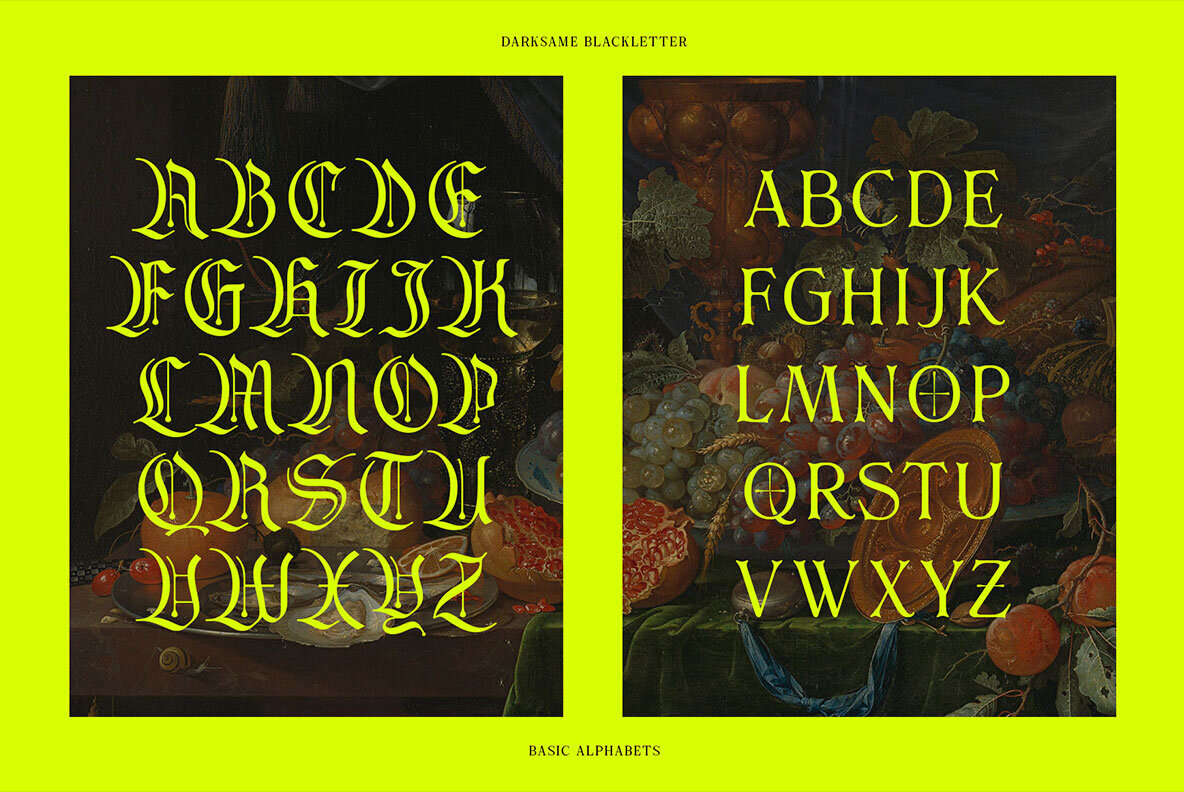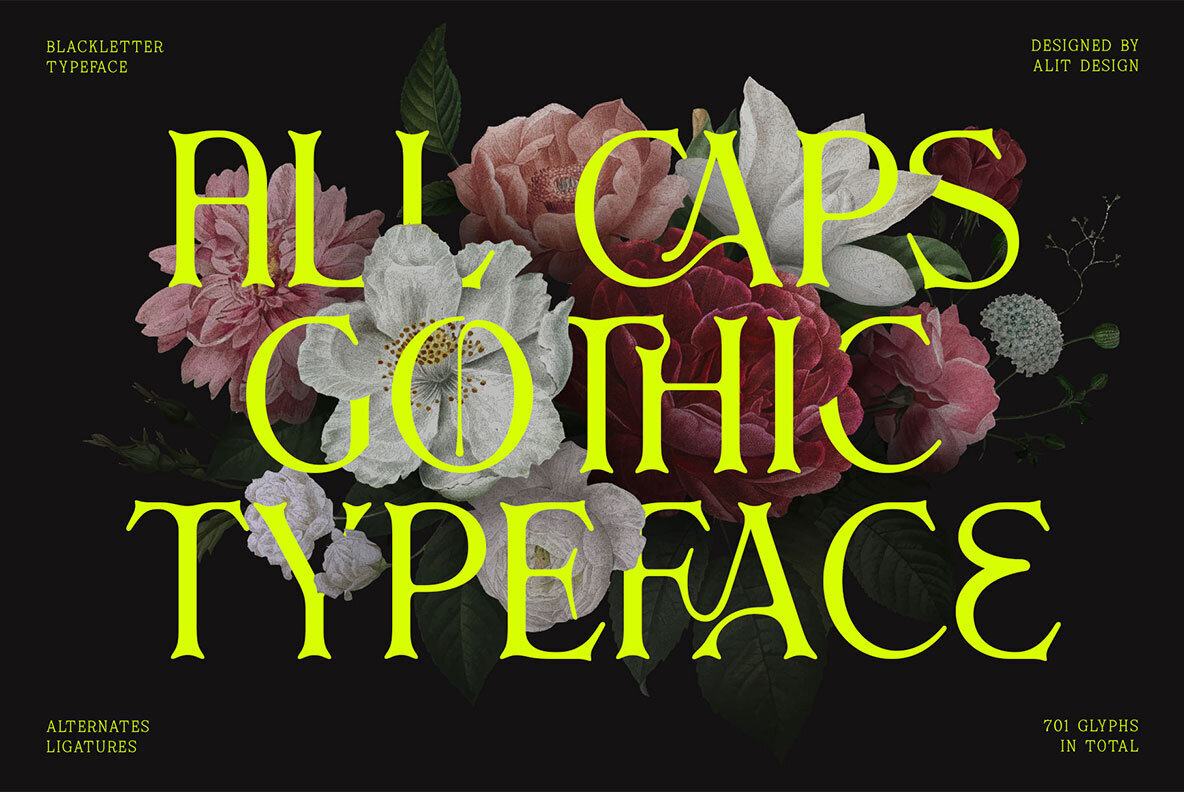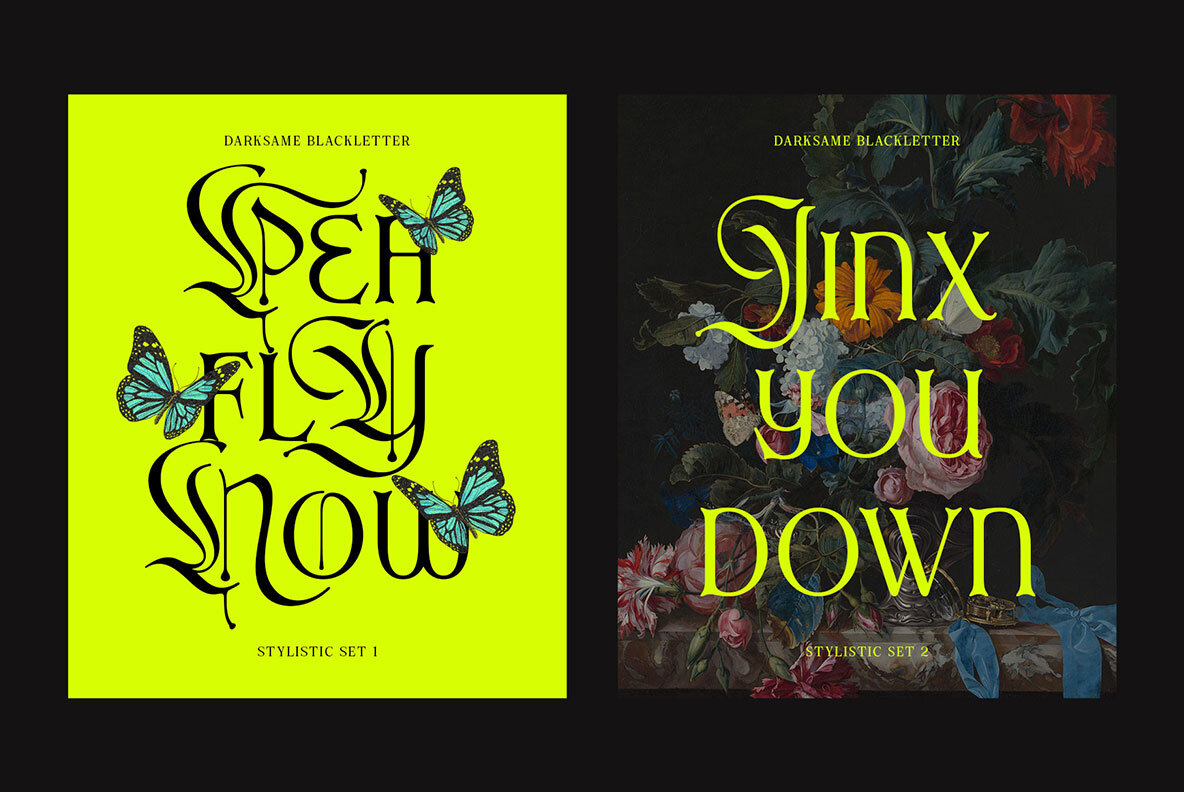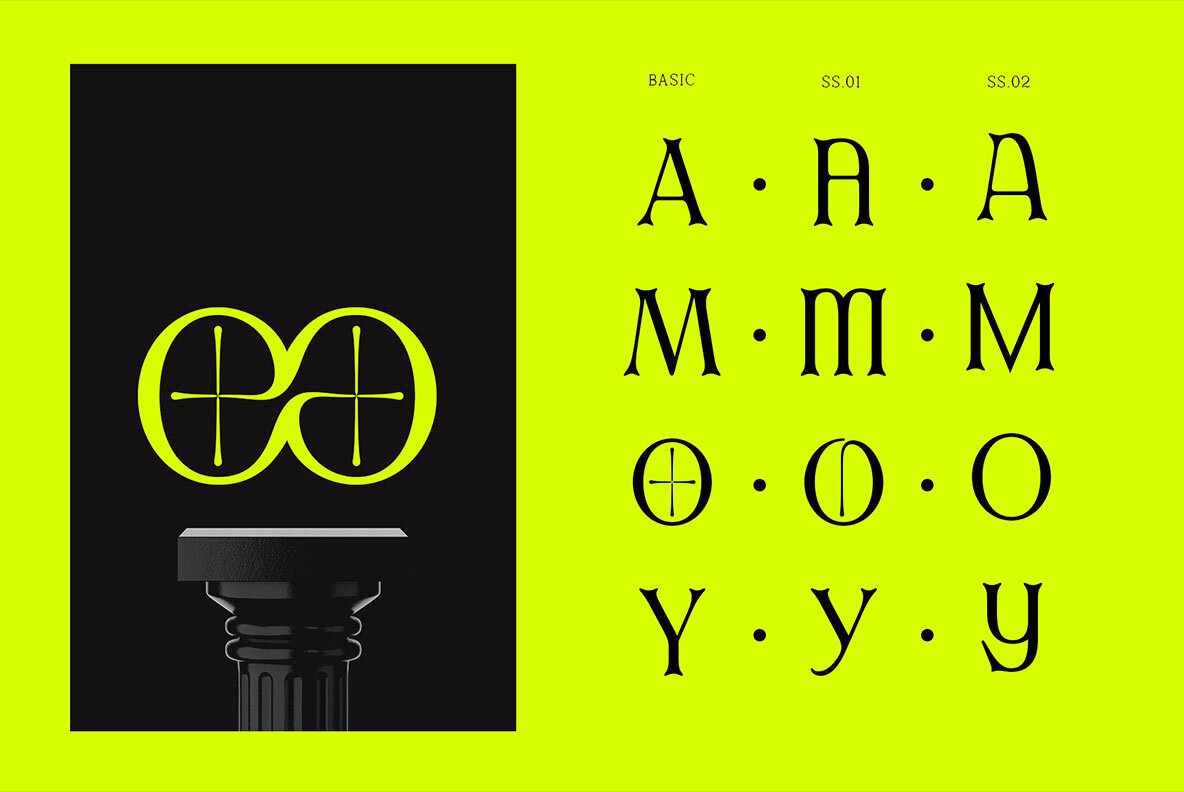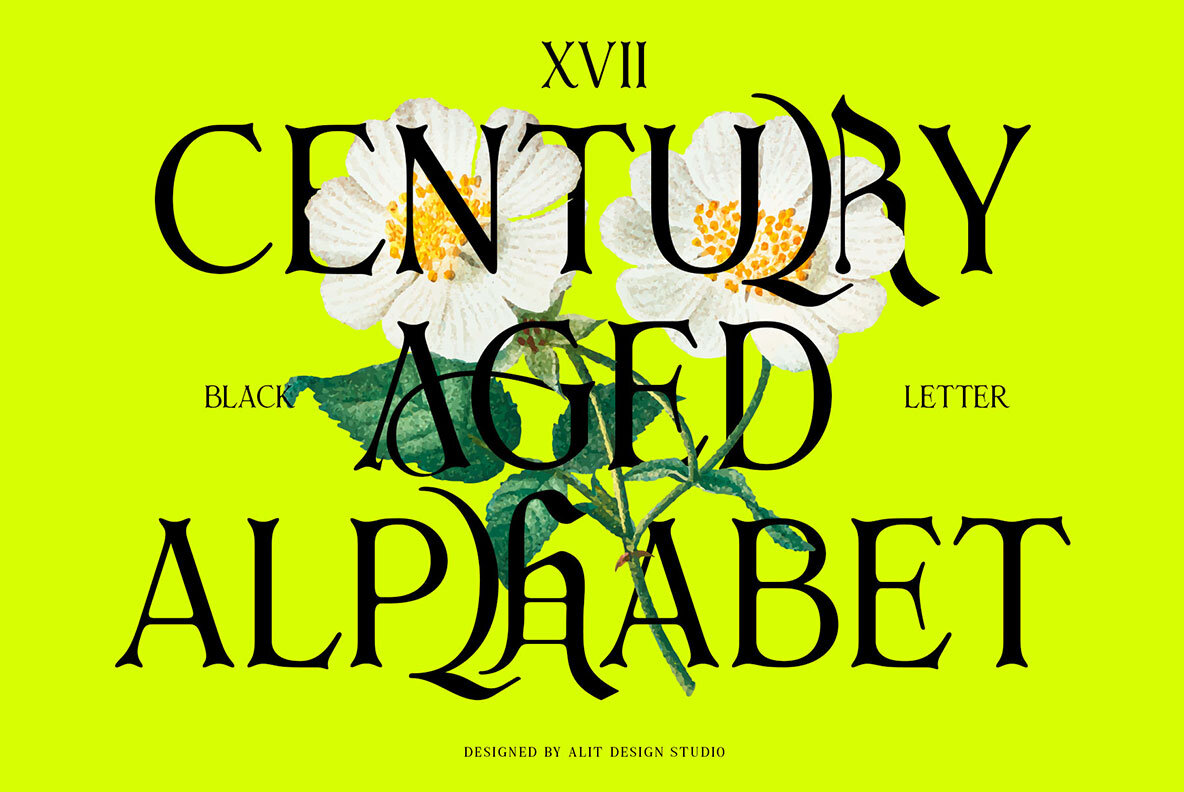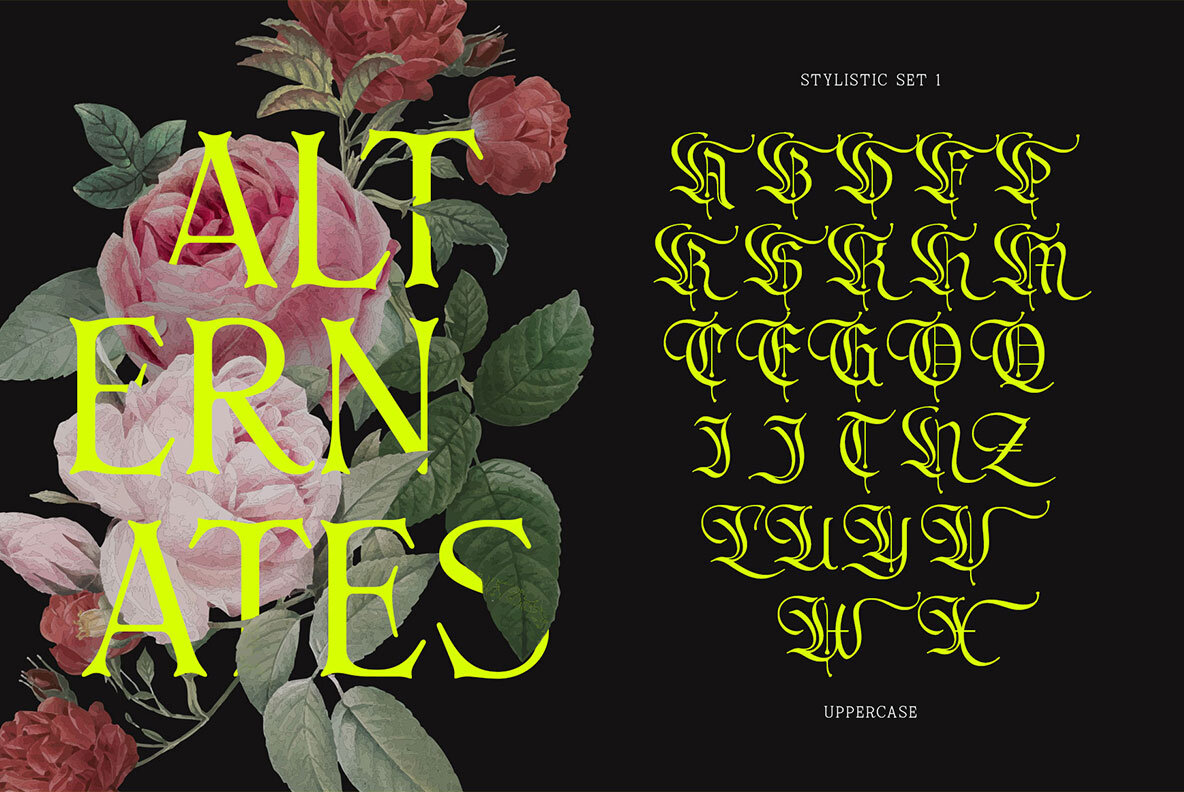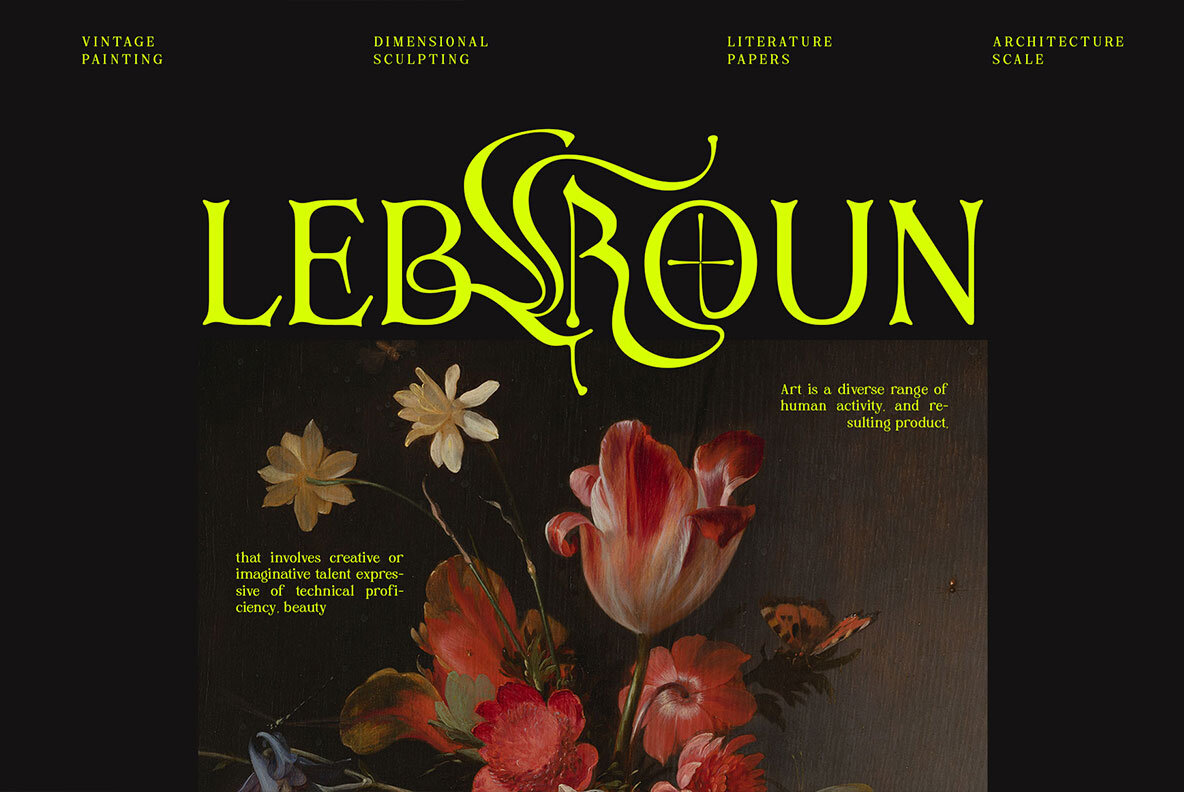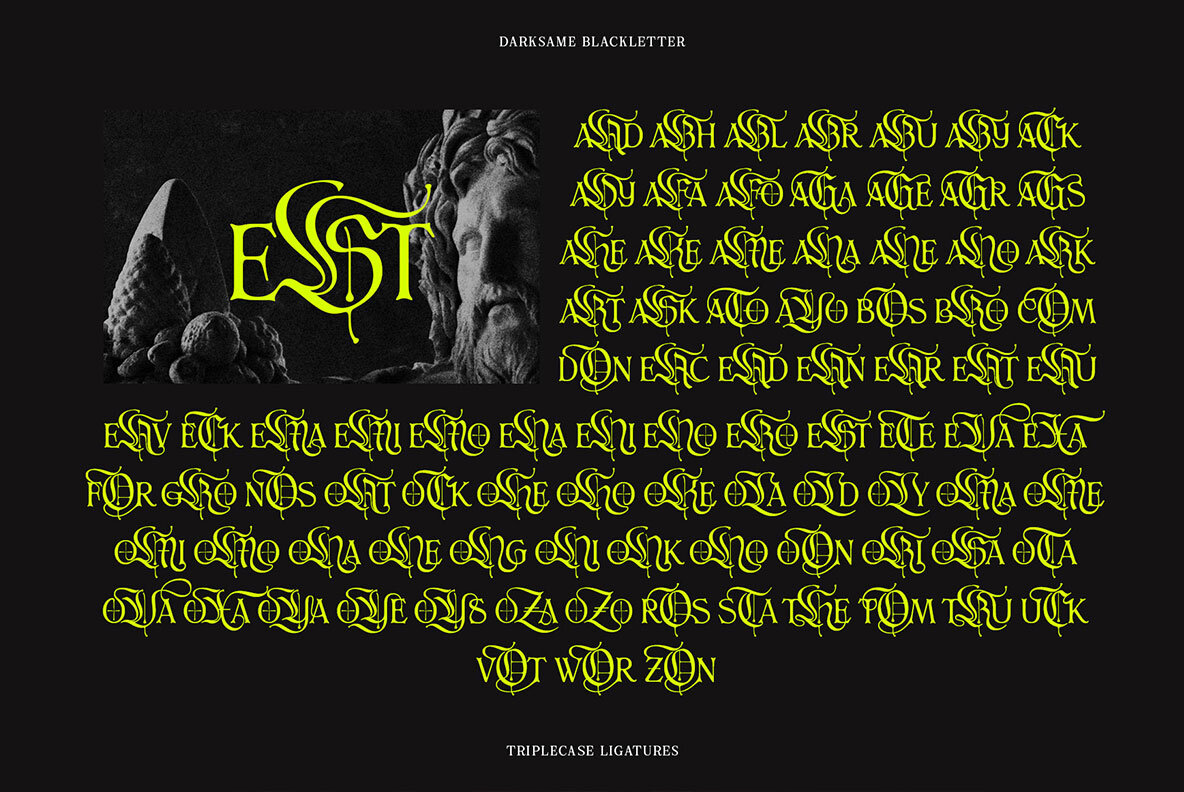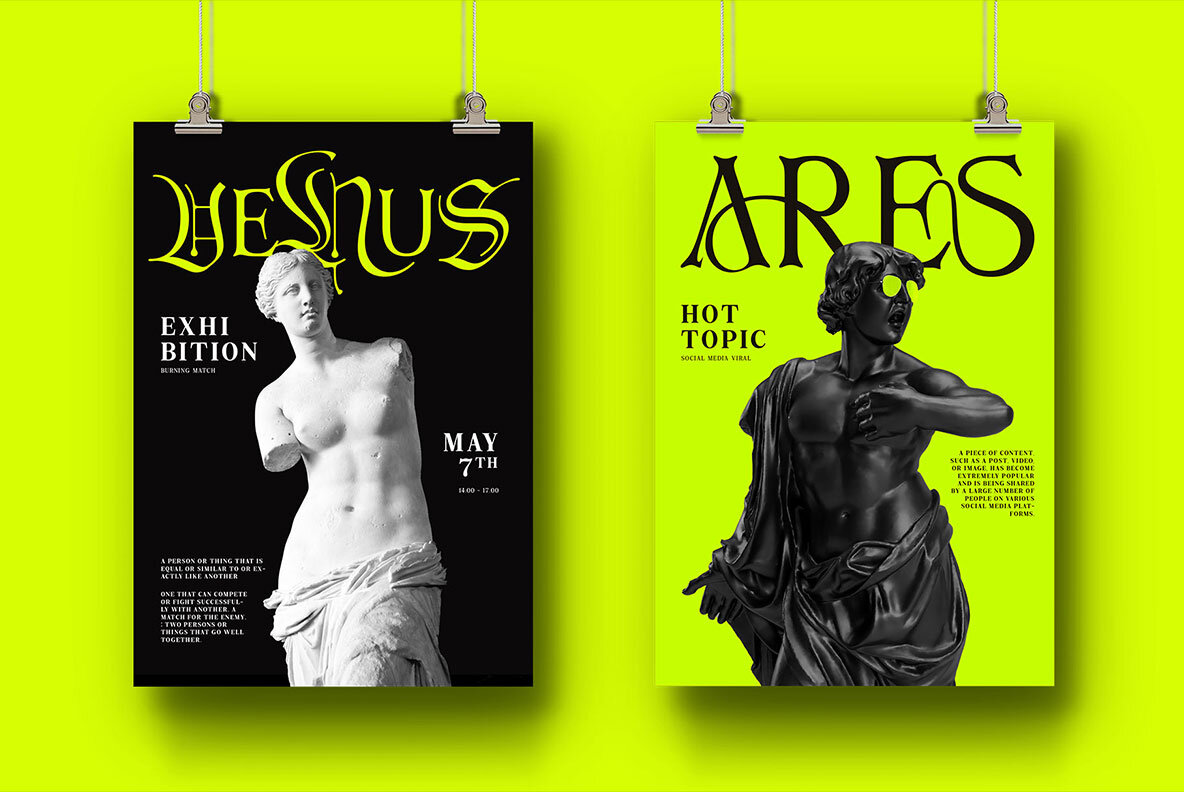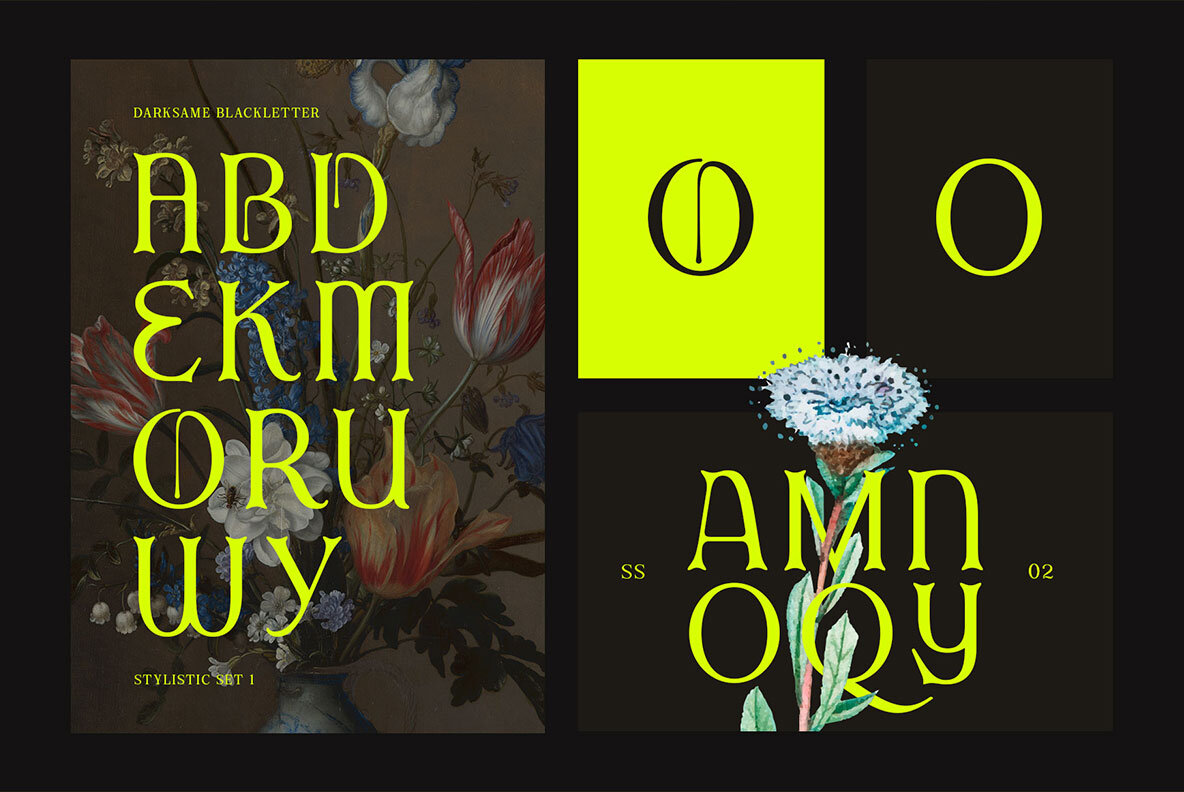
Dark Same Font
Darksame Regular
"Dark Same" is a unique and versatile font that combines the striking and bold elements of blackletter with the elegant and refined features of a serif font. This font is perfect for anyone looking to add a touch of sophistication and style to their design projects. With over 701 characters, "Dark Same" offers support for PUA Unicode and multilingual use. Its extensive range of alternate glyphs, ligatures, and swashes allow for endless creative possibilities and customization. The font's classic modern and beauty dark style makes it an excellent choice for various design projects, including branding, logos, invitations, book covers, posters, and more. "Dark Same" will add a touch of timeless elegance to any project and will make your designs stand out from the crowd. Overall, "Dark Same" is a must-have font for anyone looking for a versatile and sophisticated typeface that combines the best of both worlds: the boldness of blackletter and the elegance of a serif font.